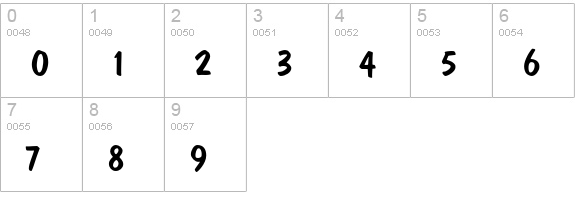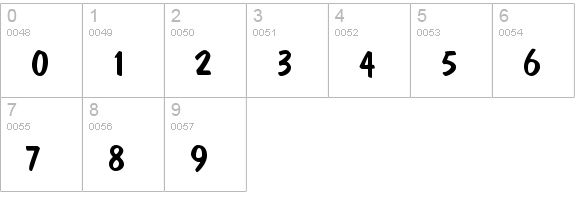
Dom Casual is a playful and charming font that exudes a sense of whimsy and friendliness. With its unique, hand-drawn appearance and quirky letterforms, this typeface is perfect for adding a touch of personality to any design project. Whether used for headlines, logos, or invitations, Dom Casual is sure to make a statement and capture attention. What sets Dom Casual apart is its versatility and ability to work well in a variety of contexts, from casual and fun to elegant and sophisticated. Its rounded edges and slightly irregular strokes give it a warm and inviting feel, making it a great choice for conveying a sense of approachability and creativity. Best of all, Dom Casual is freely available to download at FontsMarket.com, making it easily accessible for designers looking to add a touch of charm to their work. So why wait? Embrace the playful spirit of Dom Casual and enhance your designs with this delightful typeface today.